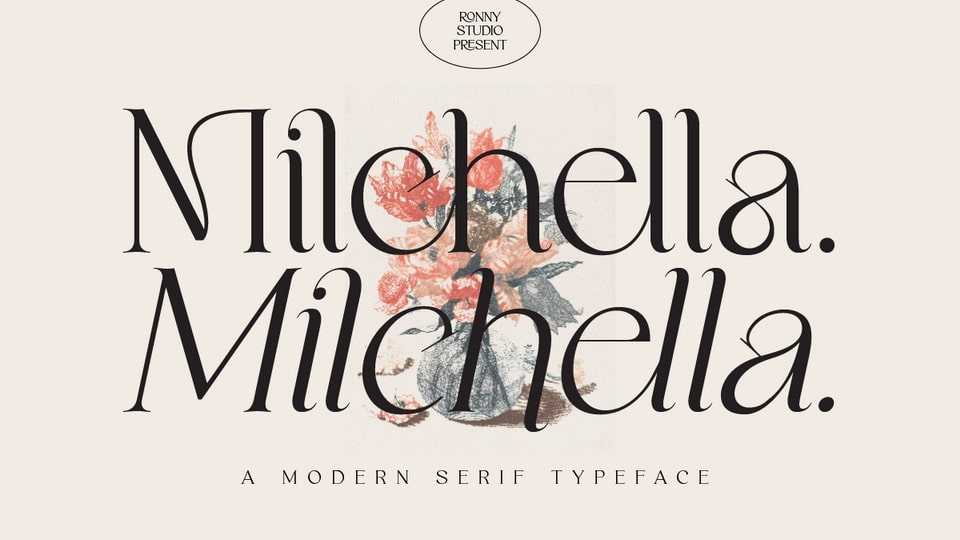
Download Milchella font, a luxurious and elegant serif typeface. Milchella font is impressive and features a clean and elegant font, professionally shaped, and as a result, it will easily match a variety of creations that require a different touch.